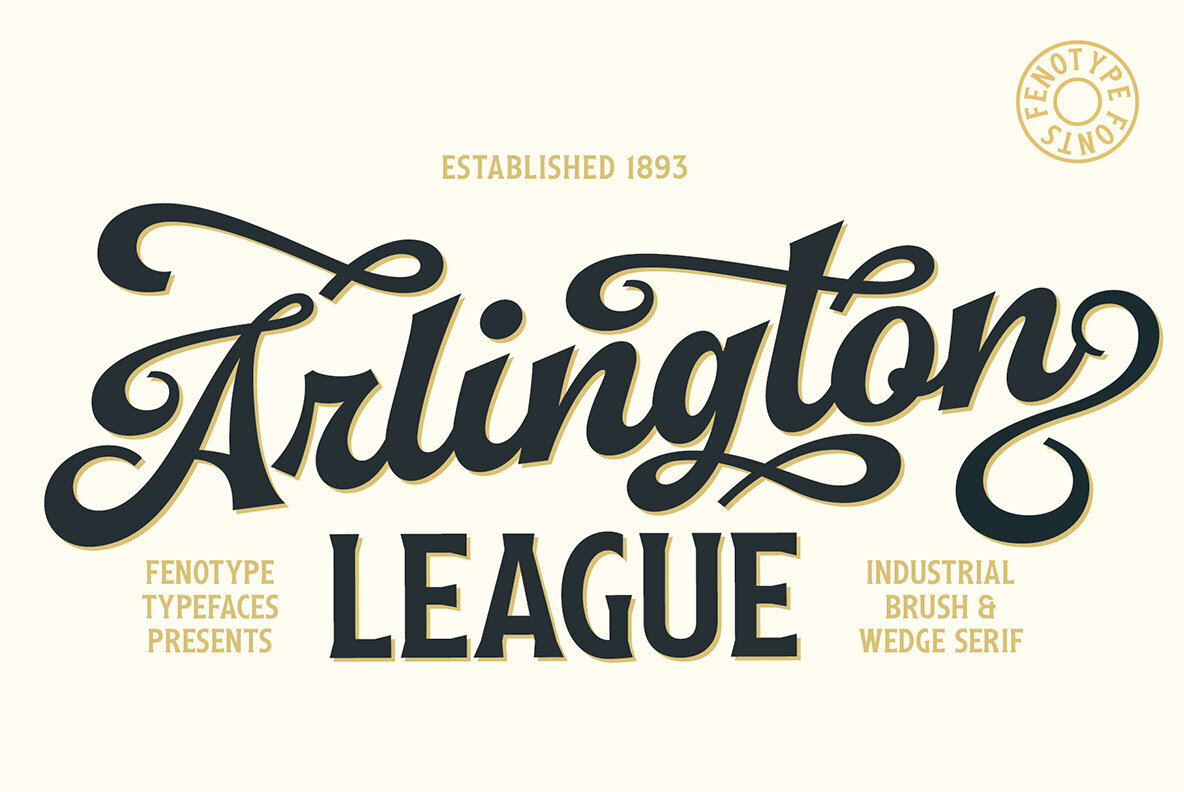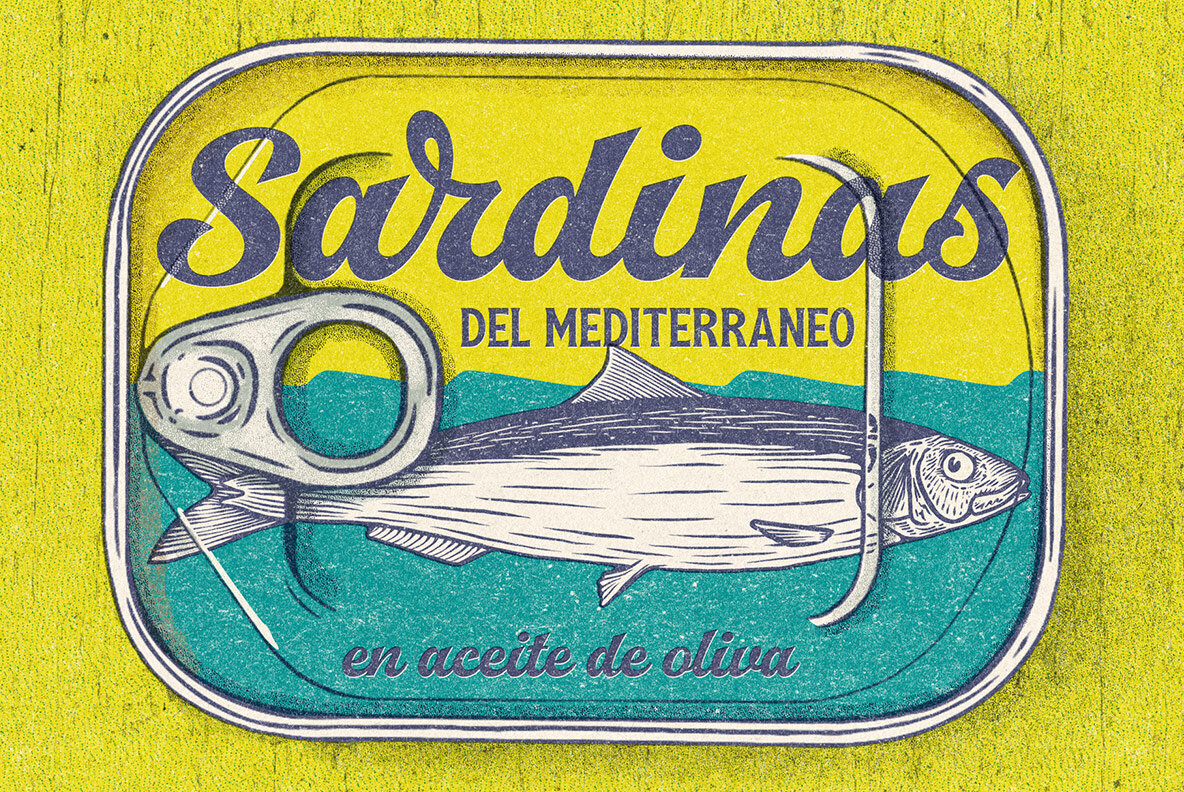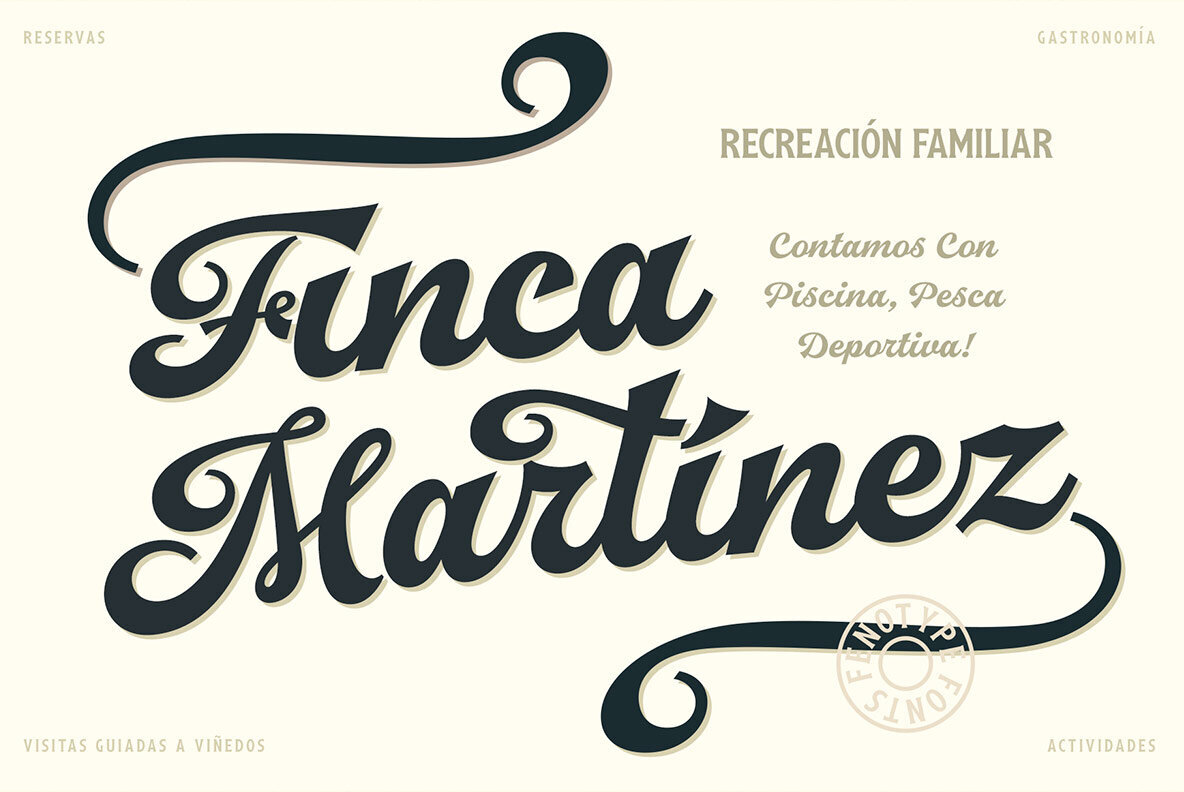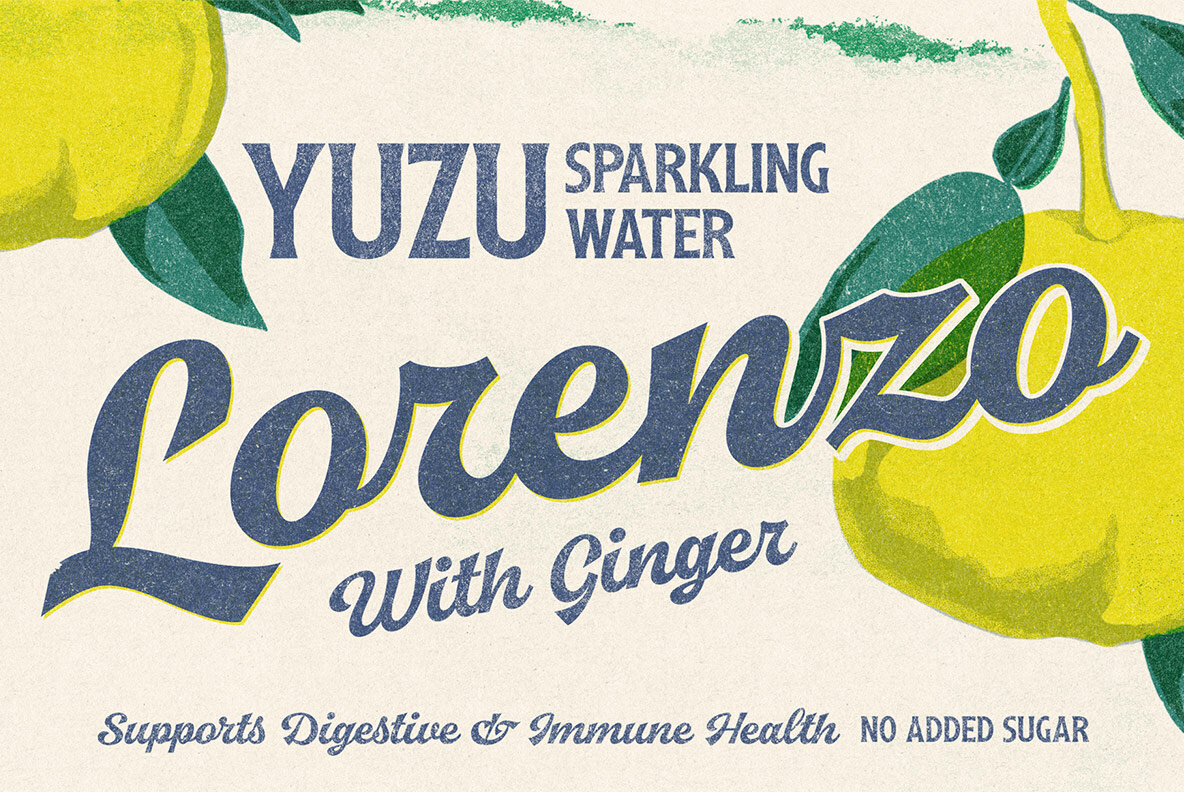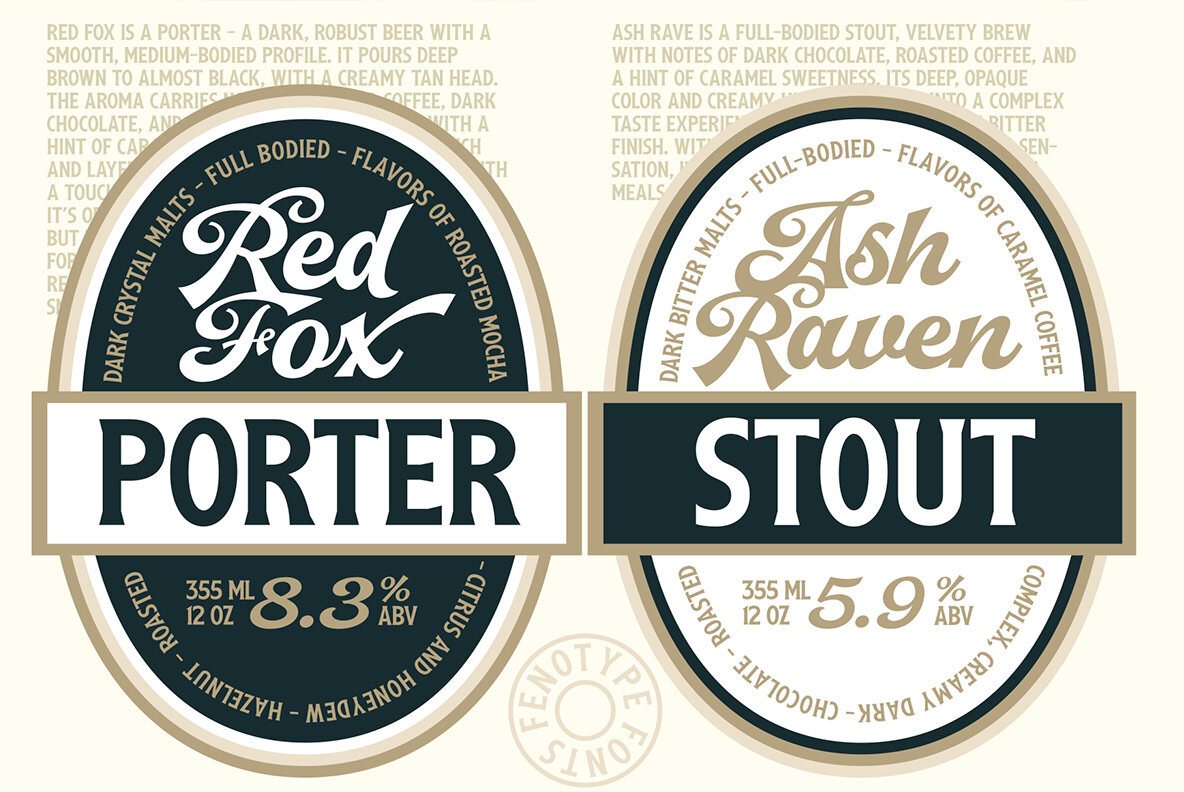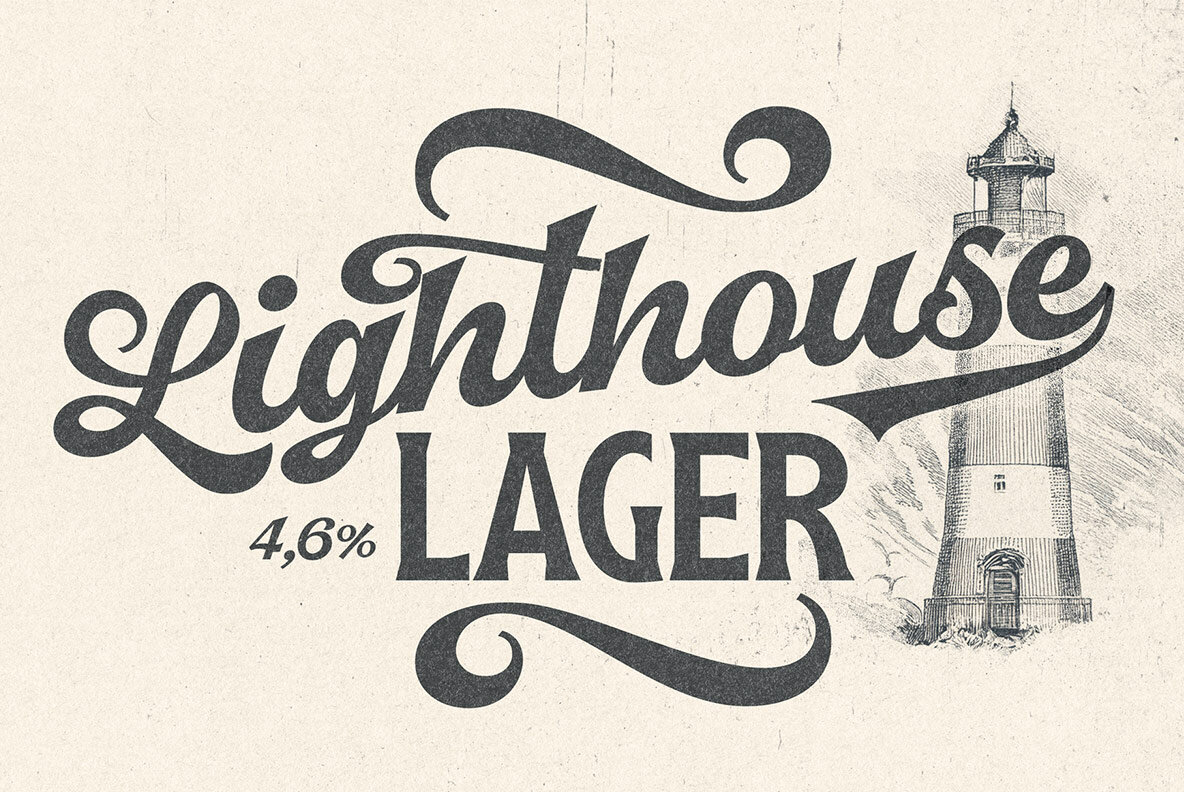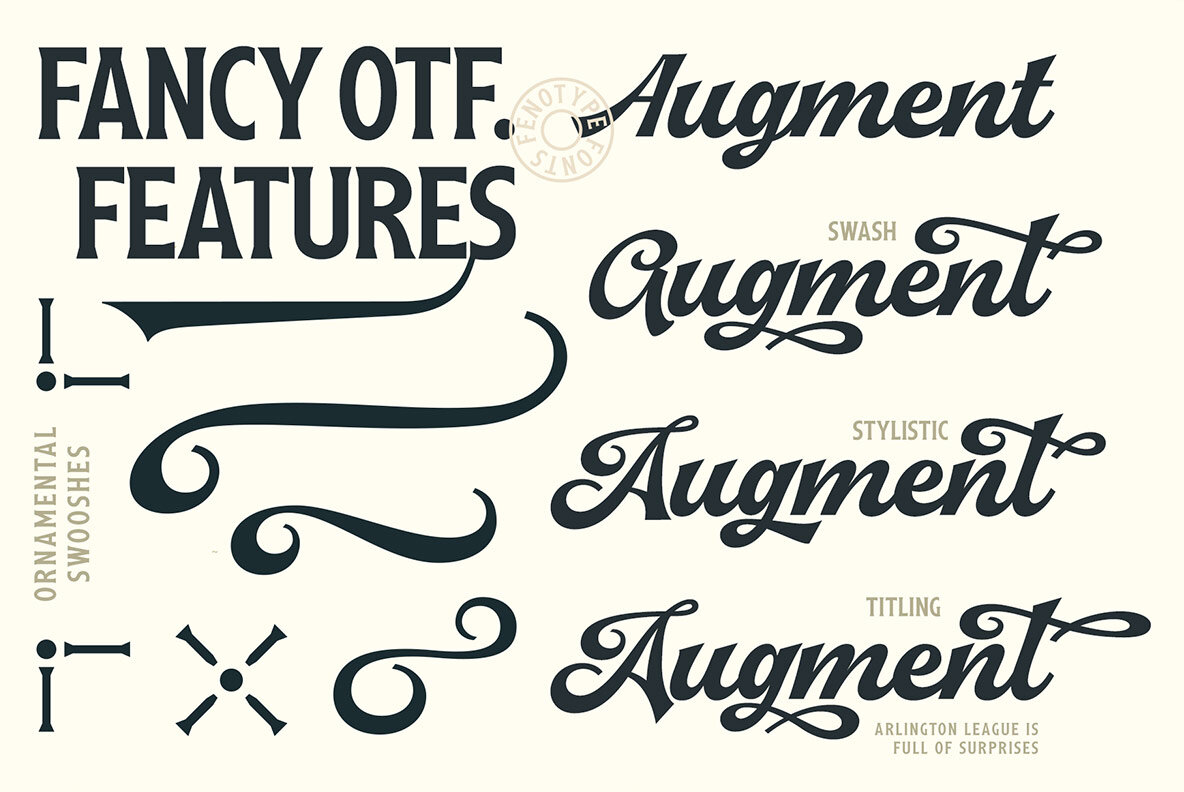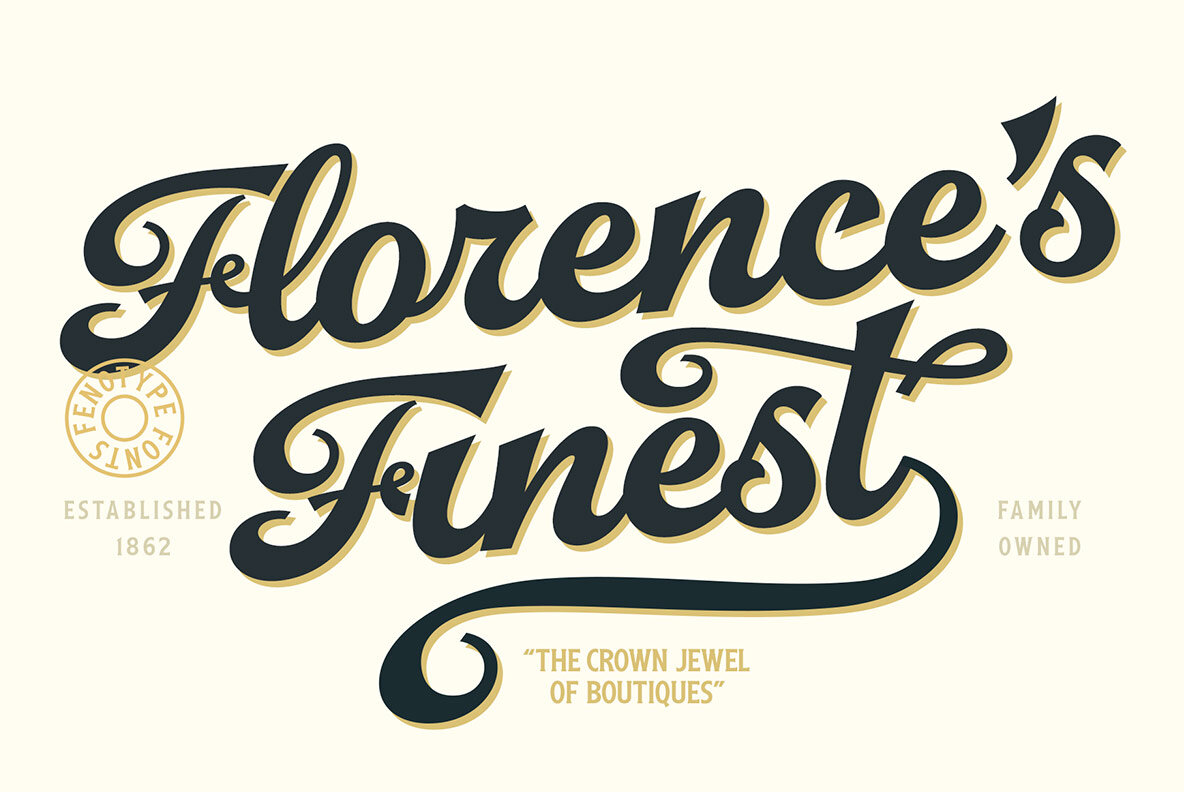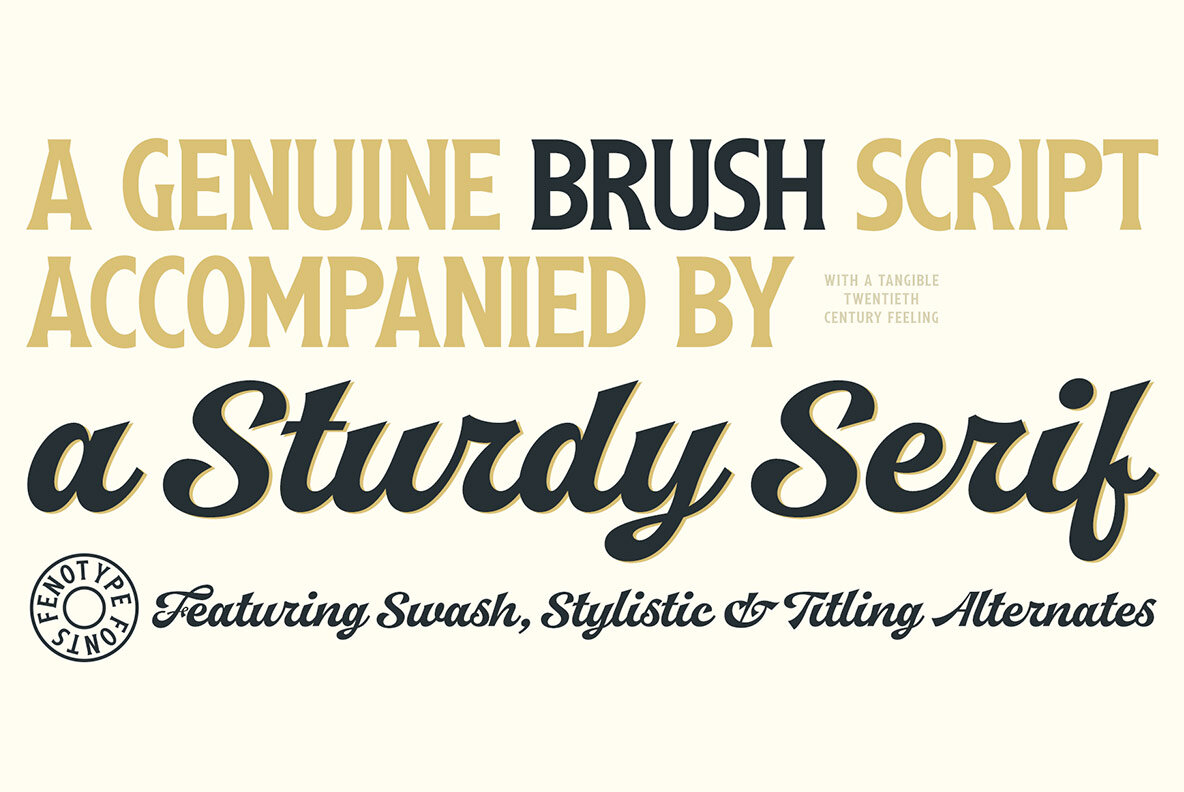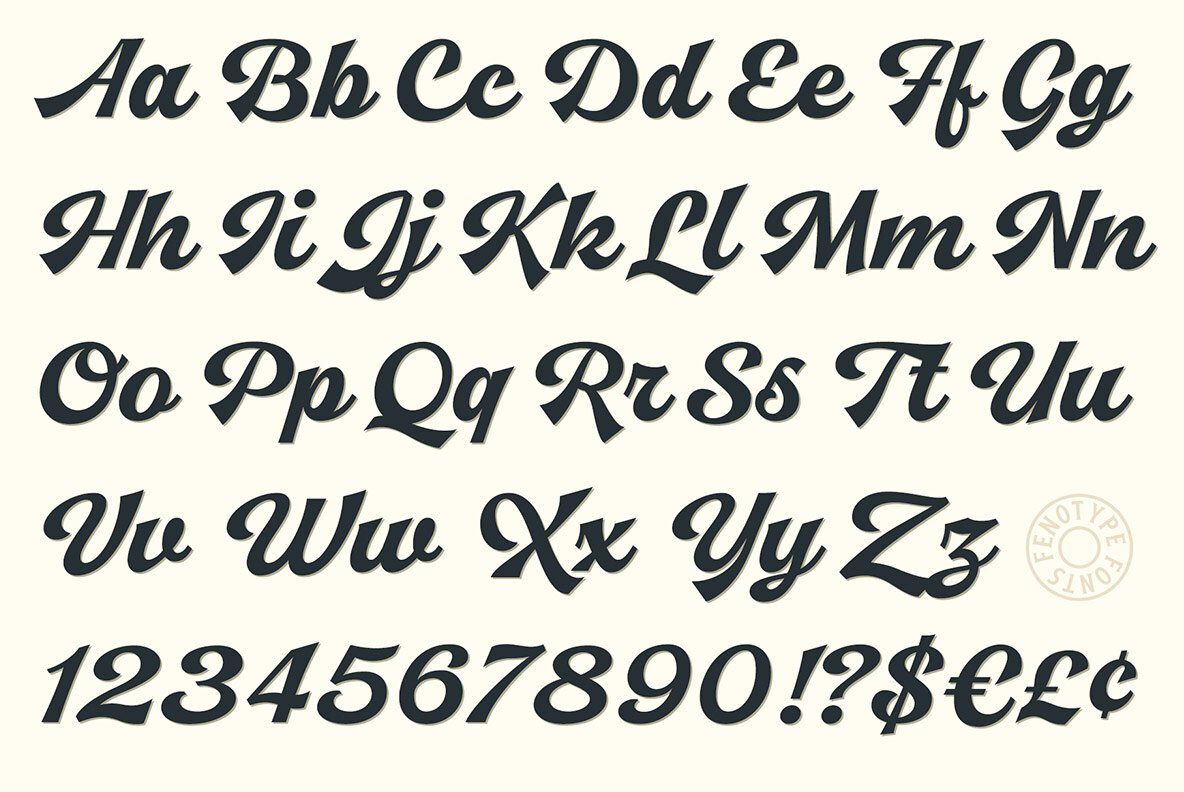
Arlington League Font
Invoke the charm of classic design with Arlington League, a vintage-inspired typeface pair that seamlessly blends a sharp brush script with a low-contrast condensed flared serif. Perfect for sport logos, beer labels, and baseball scripts, this font duo adds an authentic touch of traditional elegance to your projects.Arlington League Typeface